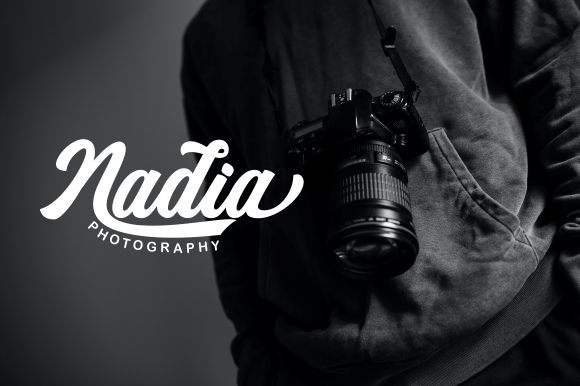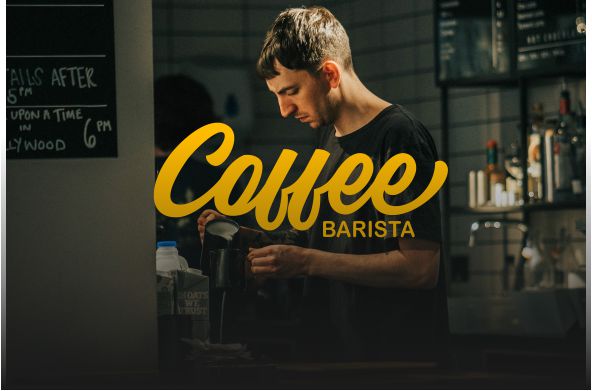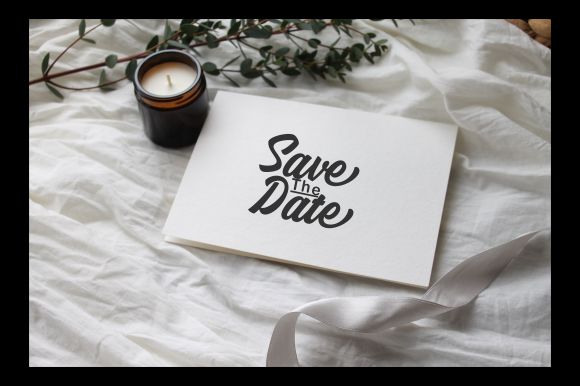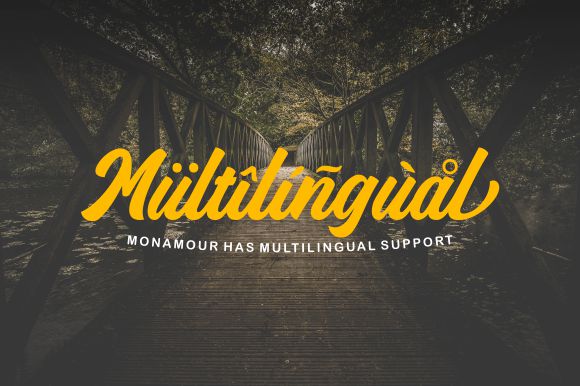
Monamour Font
Monamour Script Font
This font is a modern, organic, dynamic and energetic soft brush font with multiple alternatives and a multilingual language. Can be used for various purposes. such as title, signature, logo type, correspondence, wedding invitation, letterhead, nameplate, label, newsletter, poster, badge, etc.